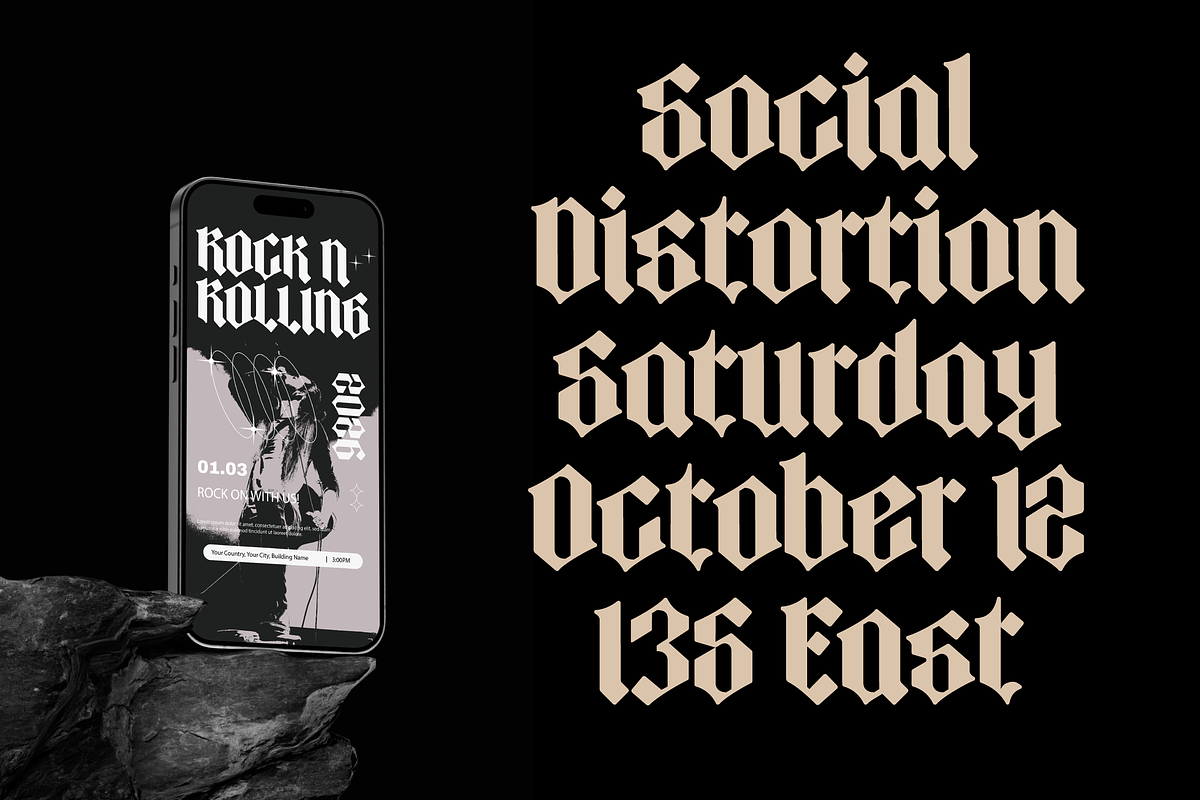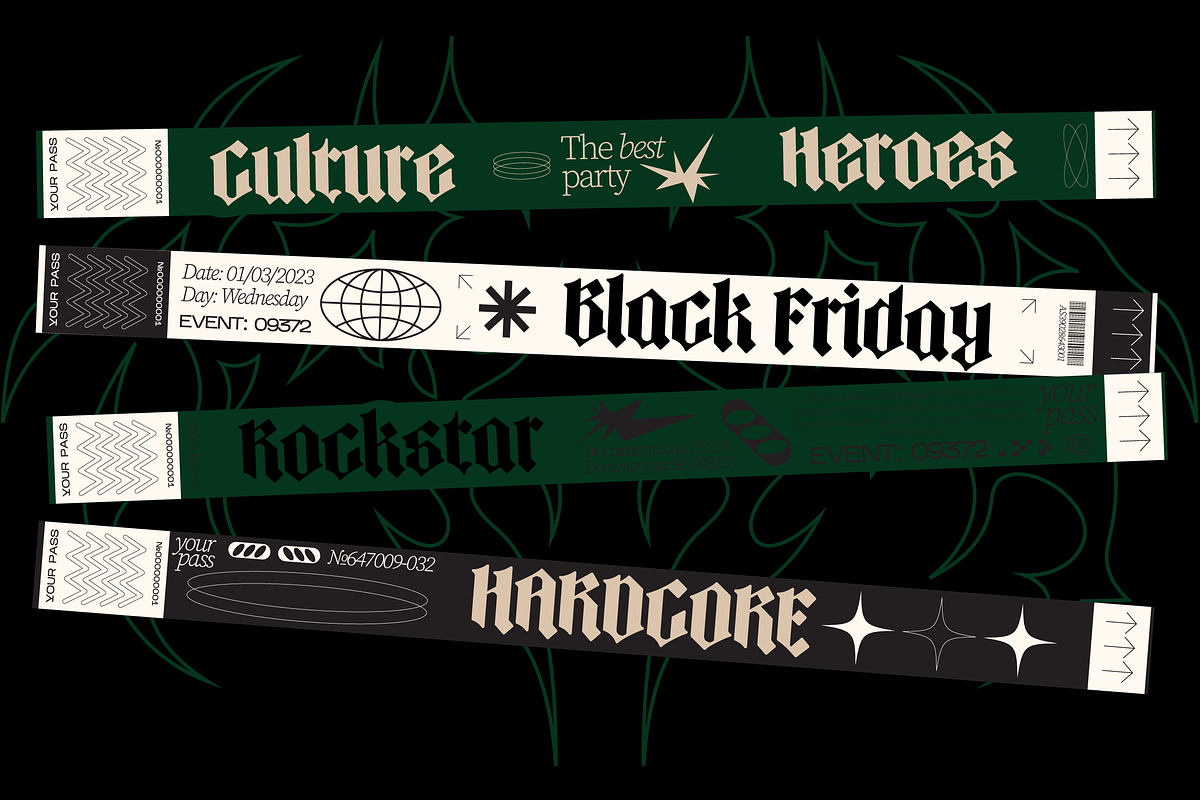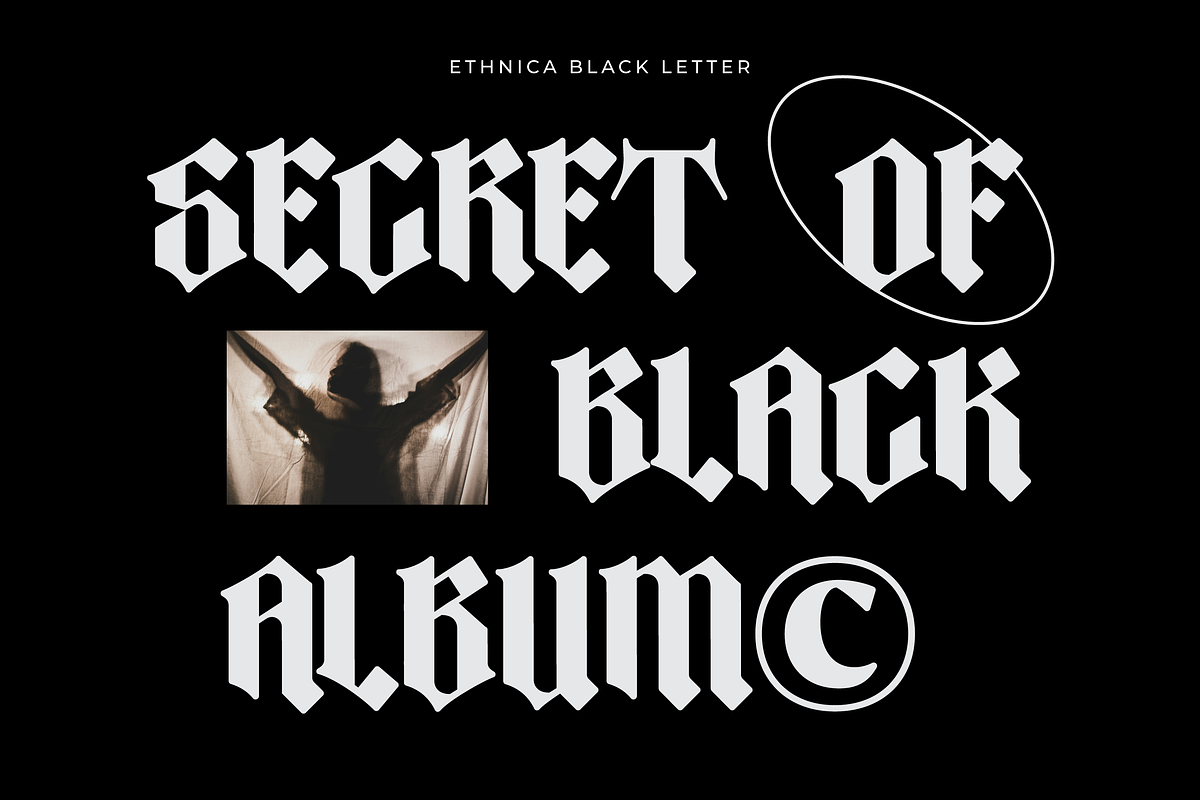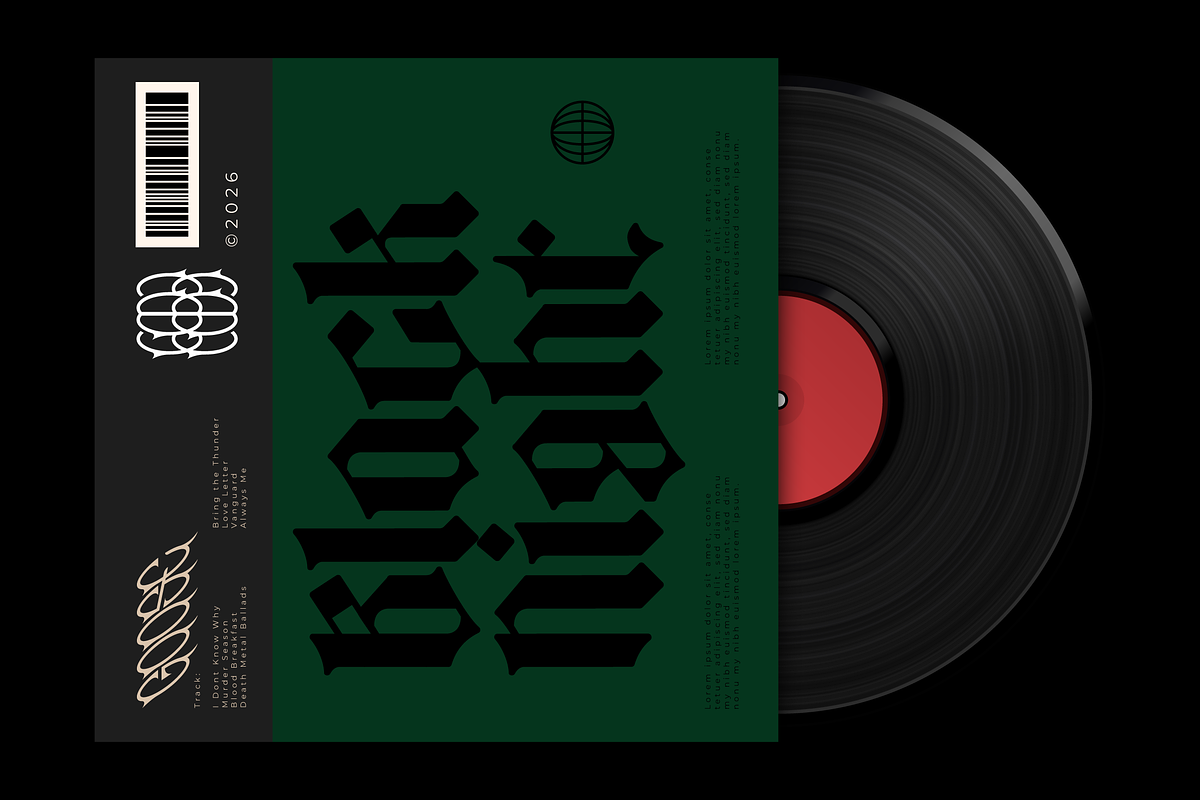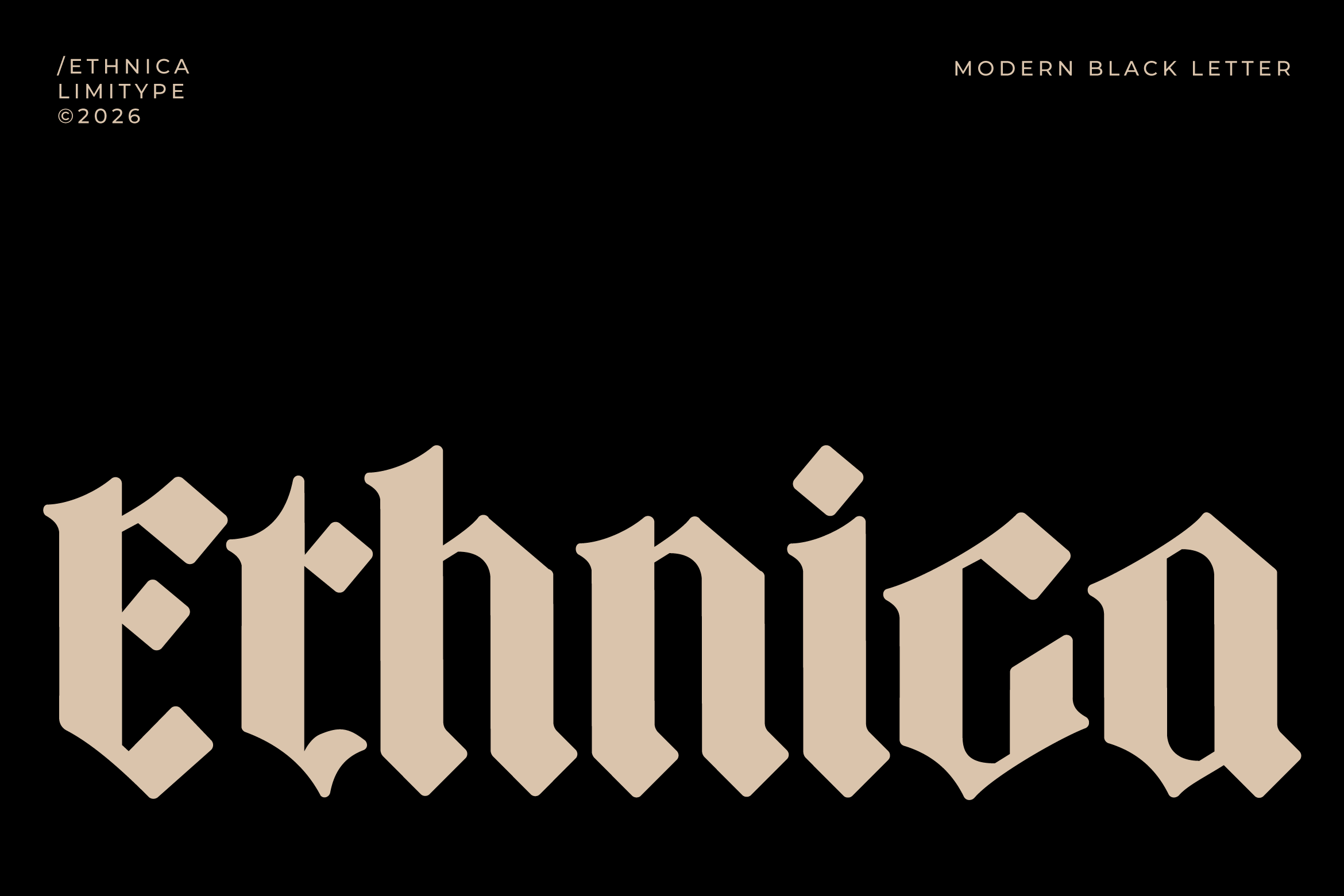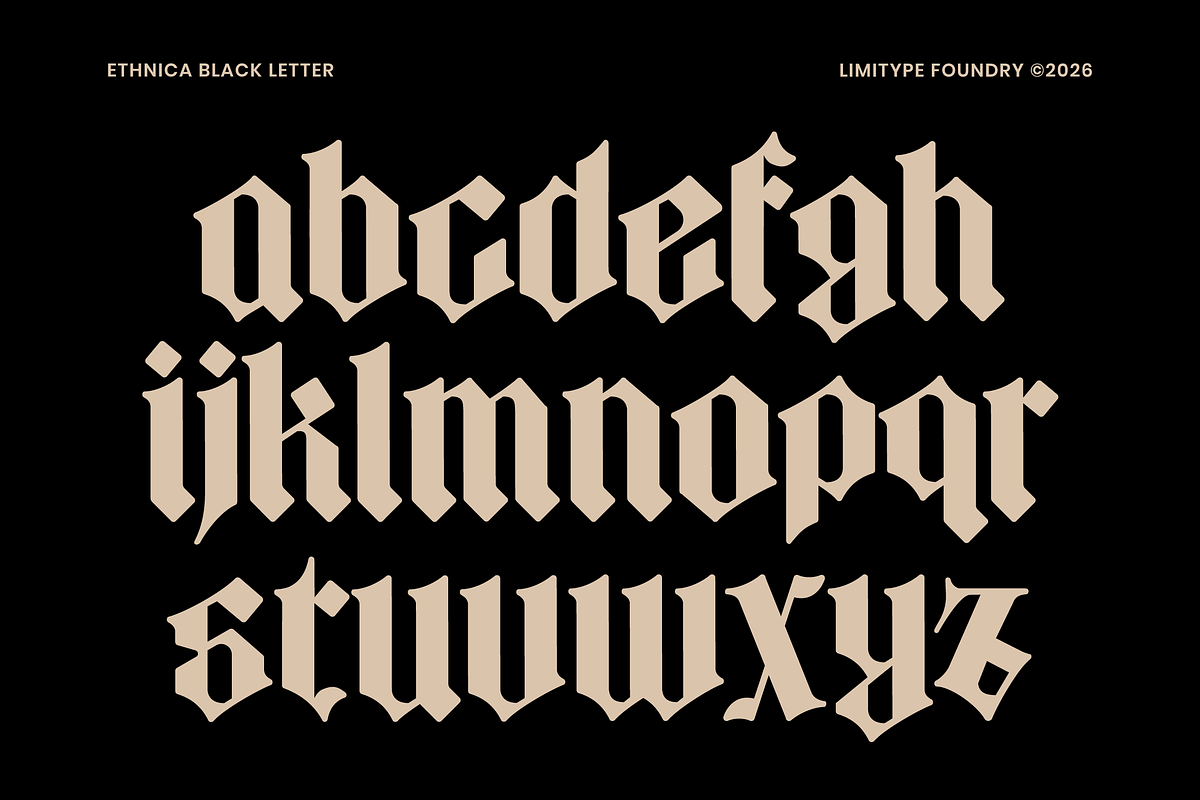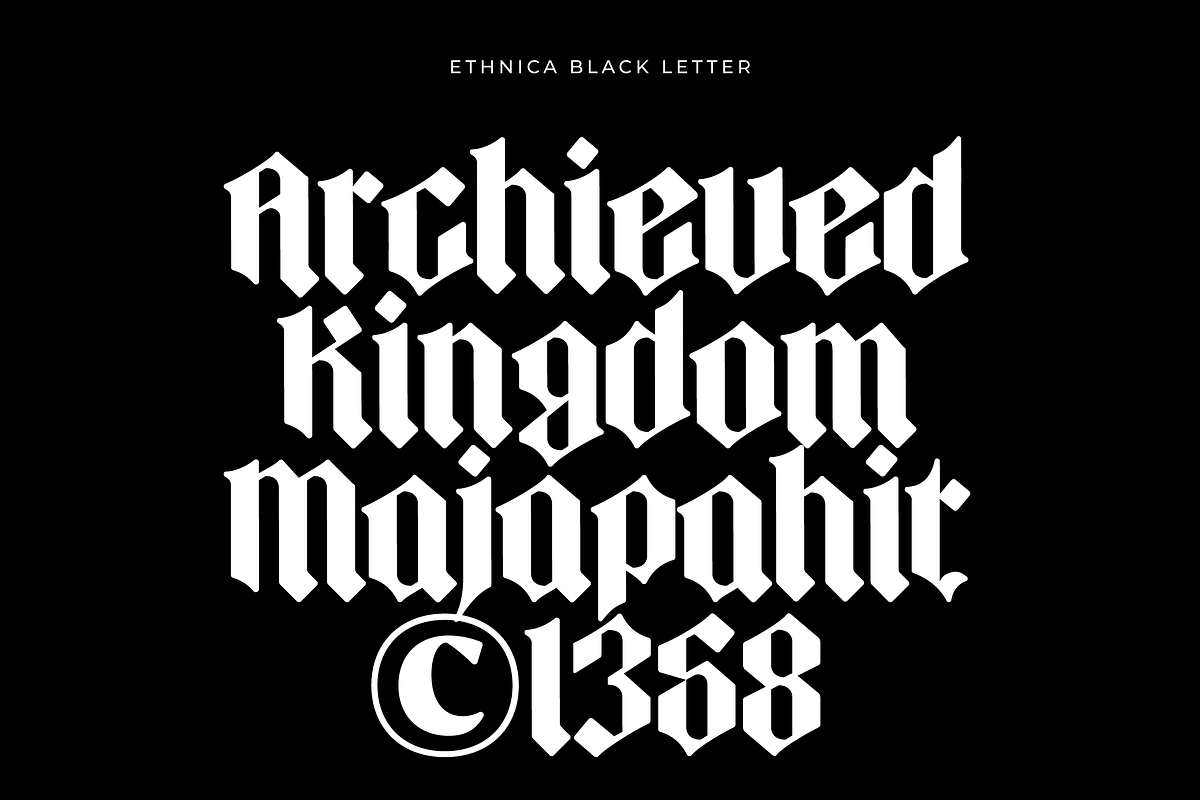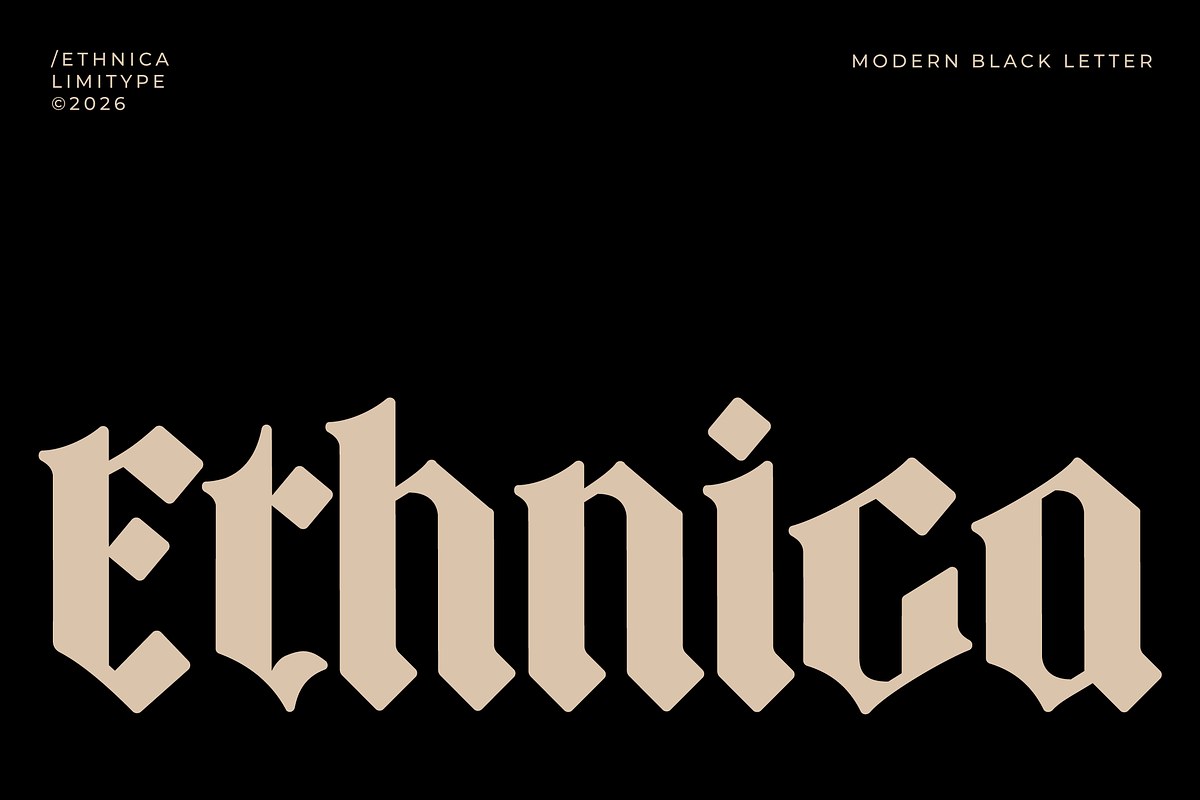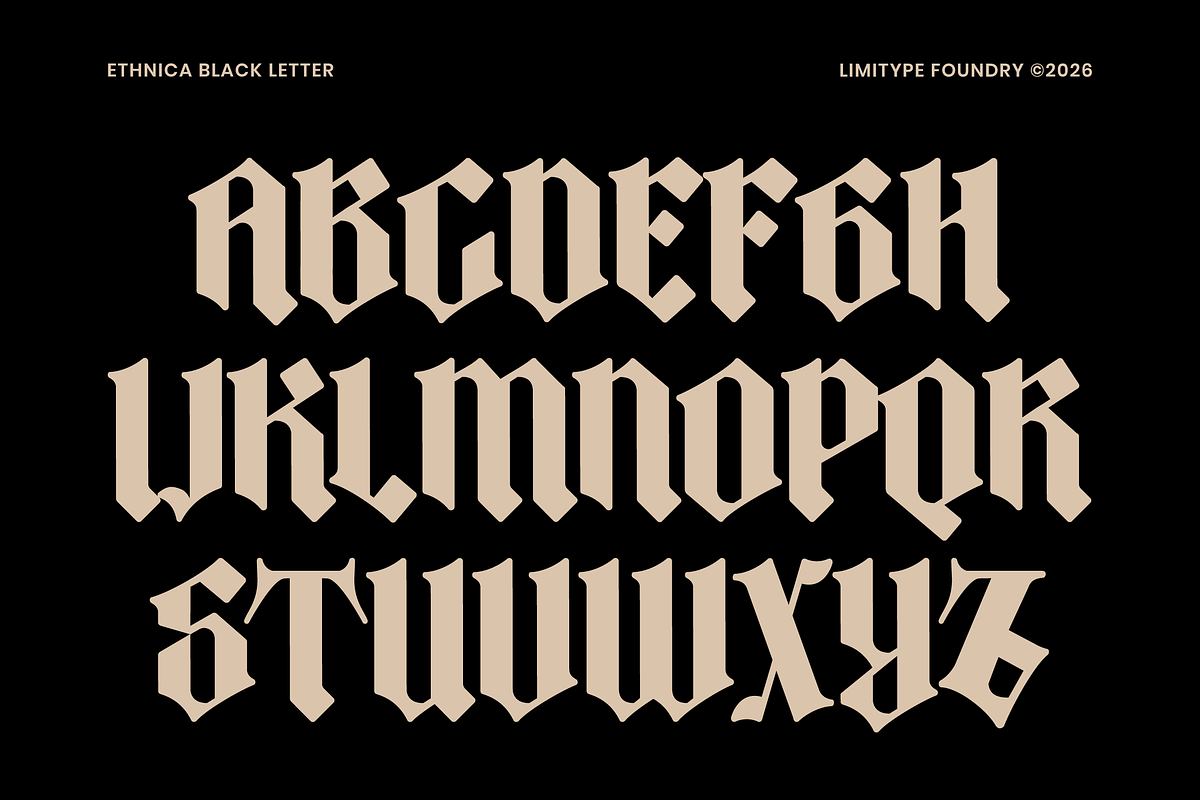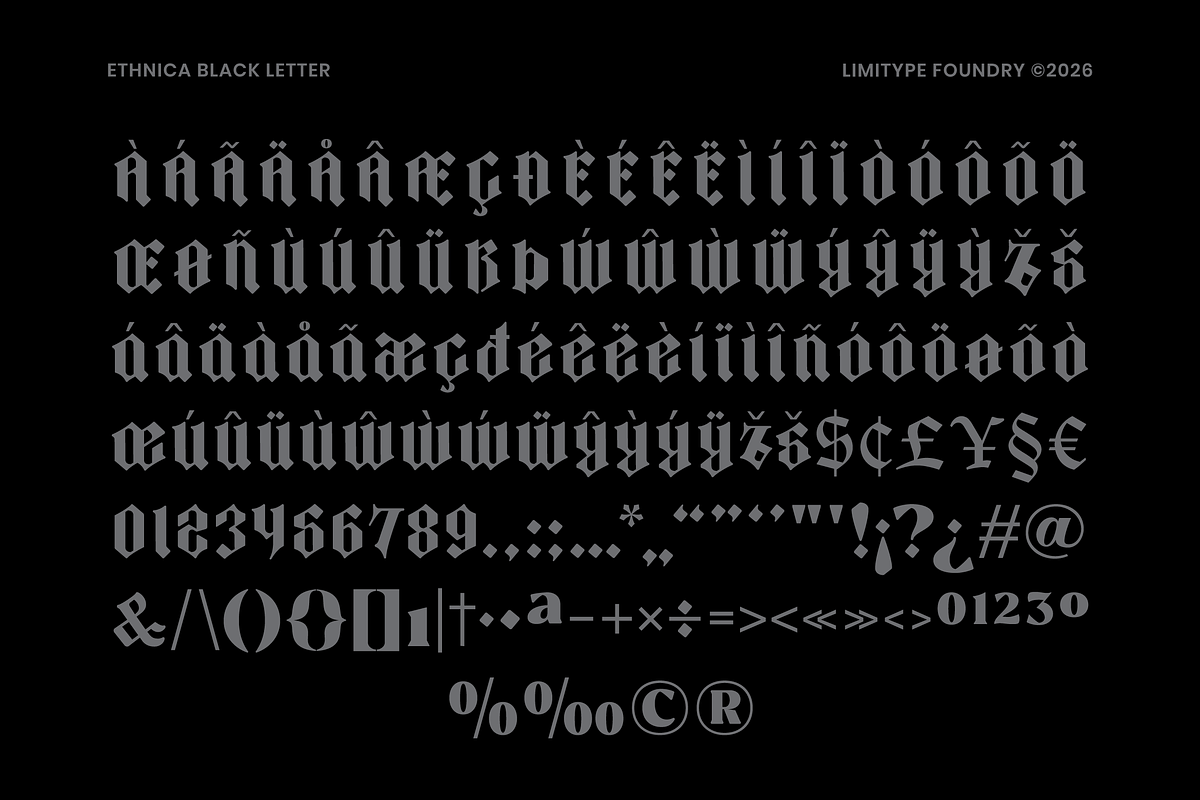
Ethnica - Blackletter Font
Ethnica is a blackletter font with unique form, crafted to deliver a strong historical presence with a contemporary twist. Its sharp angles, dramatic strokes, and distinctive letter structures create a bold personality that stands out in branding, packaging, posters, editorial headlines, and logo design.